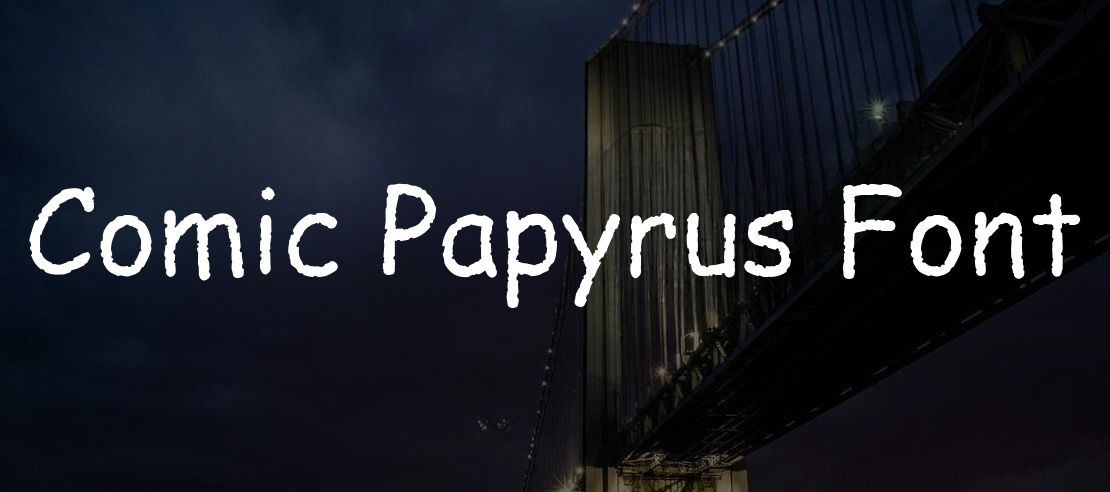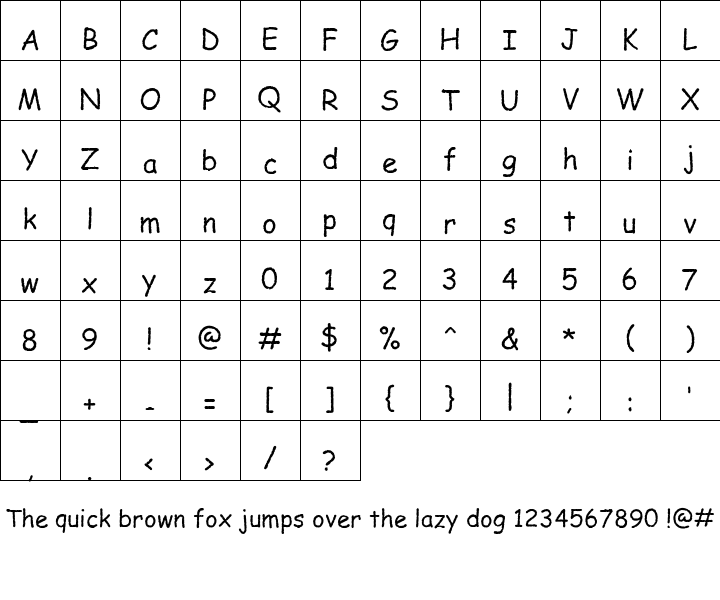
Comic Papyrus Font is a type of the Calligraphy Font family. It has a unique and creative Hand-written texture style that is perfect to create stylish and playful designs and projects. This typeface also has a number of variants with very identical personalities. As a result, instead of those typefaces, you can use this font.
Texture Road Font and Ocean Font, for example, have more characters and features in common with this design, according to our research. As a result, this font type can be used in place of Texture Road Font and ocean font.
This font is also well-known for its ability to match with other fonts. As a result, you may effortlessly combine different typefaces to create stunning graphics and projects.
Designer of Comic Papyrus Font
This typeface is designed by a well-reputed artist and designer named Ben Harman. He has also designed many of the fonts for Disney, Netflix, Warner Brothers, and My mate Dave. He has created this typeface by combining two famous fonts Papyrus and Comic Sans.
This typeface texture is made up particular style. Each style in this family includes capital letters, tiny letters, glyphs, punctuations, numbers, symbols, and special characters, as well as support for a wide range of languages.
| Name | Comic Papyrus Font |
| Style | Calligraphy |
| Designer | Ben Harman |
What type of font is Comic Papyrus font?
This typeface is a type of Calligraphy font style. This creative font style is designed by Ben Harman.